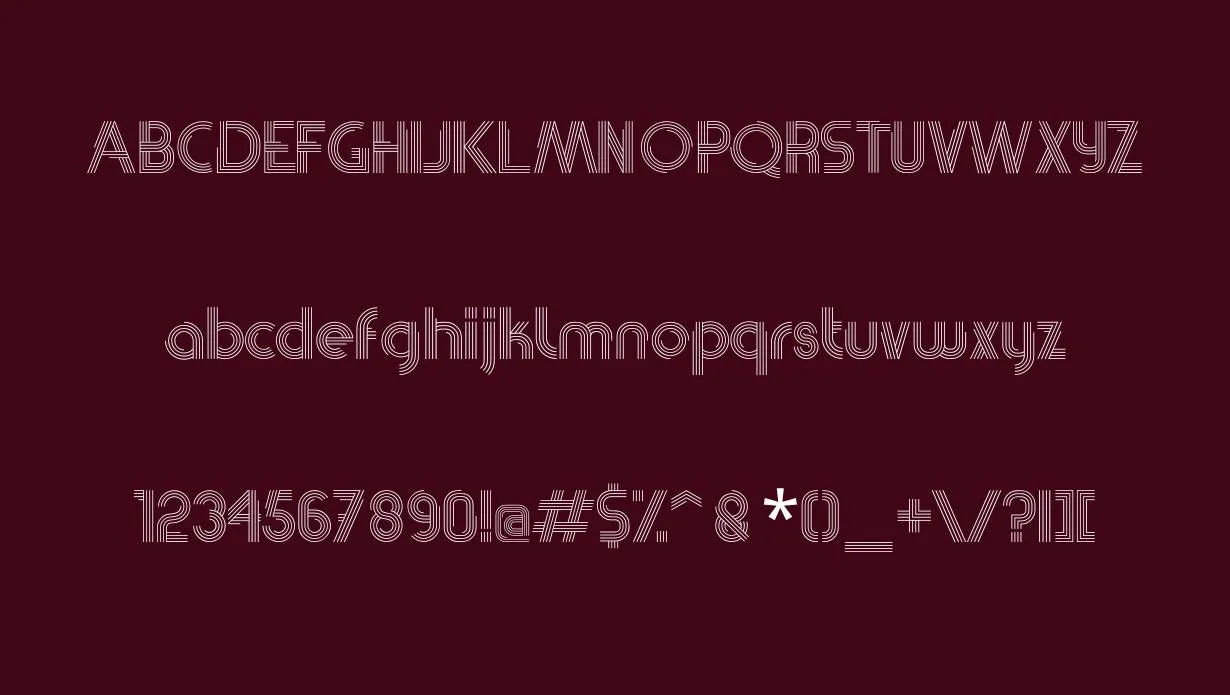
Pista Font has a sporty and dynamic appearance, making it suitable for sports-related designs, athletic events, and energetic branding.
Whether you’re designing a sports magazine cover, fitness product packaging, or organizing a sports tournament, Pista Font infuses a sense of action and movement into your work.